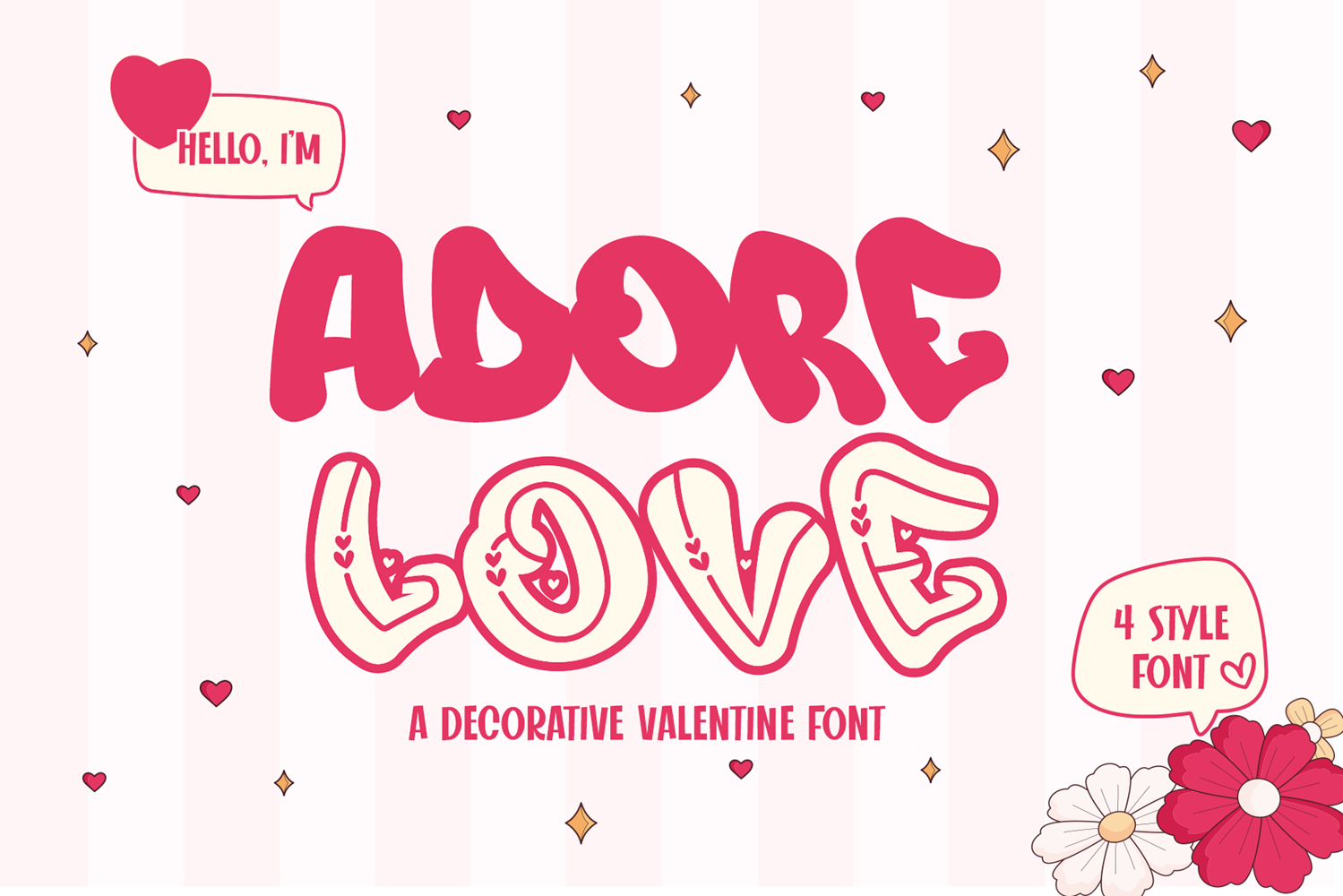
Adore Love - A Decorative Layered MOnogram Valentine Font
Adore Love is the ultimate font for capturing the essence of romance and charm. Perfectly crafted for Valentine’s Day and love-themed projects, this decorative font adds an elegant, heartfelt touch to your designs.
💖 Romantic Aesthetic: With its graceful curves and intricate details, Adore Love embodies the beauty of love, making it ideal for wedding invitations, love letters, and romantic branding.
🌹 Versatile Use: Whether creating greeting cards, posters, or personalized gifts, this font adapts effortlessly to add warmth and tenderness to your creations.
✨ Charming Details: Featuring unique decorative elements, Adore Love brings a sophisticated and dreamy vibe to any design, ensuring your message of love shines through.
Celebrate love in all forms with Adore Love, the perfect font for expressing affection and creating unforgettable designs.